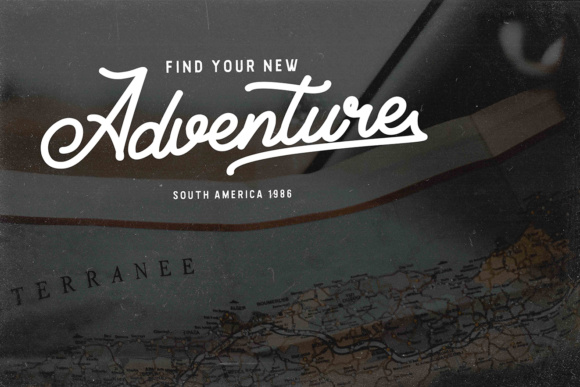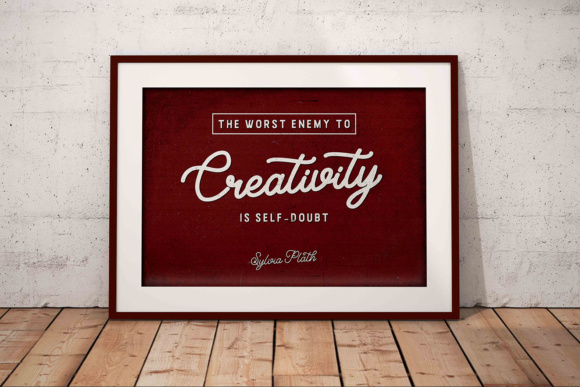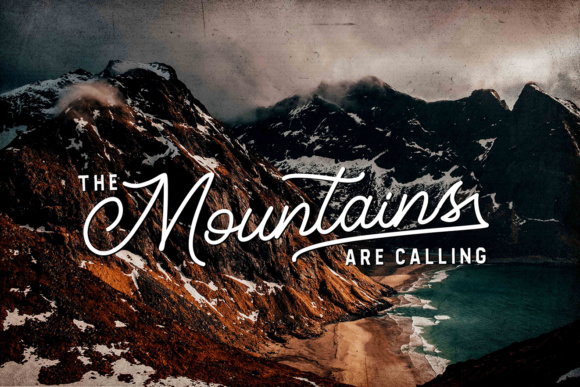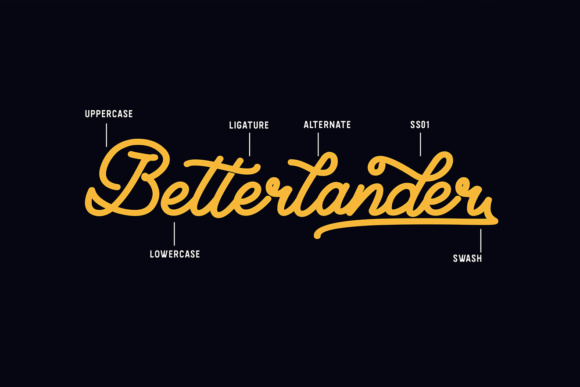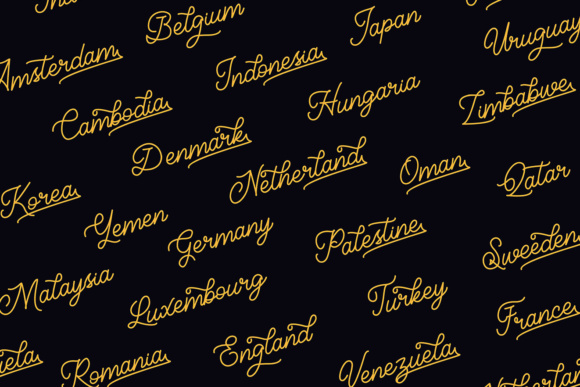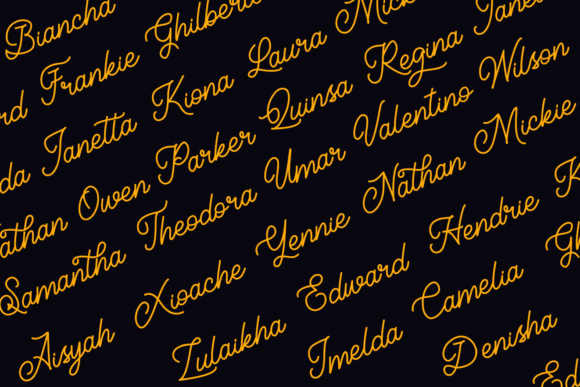
The Timeless Elegance of Classical Font: Elevate Your Design with a Monoline Typeface
In the world of typography, few fonts have managed to stand the test of time like the Classical font. This monoline typeface, available in regular and bold versions, has been a staple in the design community for its classic elegance and versatility. Whether you’re a seasoned designer or a crafty DIY enthusiast, the Classical font is an excellent addition to your typographic arsenal.
The Characteristics of Classical Font
The Classical font is a monoline typeface, characterized by its clean and simple lines. The regular version of the font exudes a sense of classic elegance, reminiscent of traditional serif fonts, but with a modern twist. The bold version, on the other hand, packs a punch, giving your design a striking look that’s sure to grab attention.
One of the key features of the Classical font is its exceptional legibility. The carefully crafted letterforms ensure that your text remains clear and easy to read, even at smaller font sizes. This makes it an excellent choice for body text, as well as for headlines and titles.
Using Classical Font in Your Design
The Classical font’s versatility is one of its greatest strengths. Its classic elegance makes it an excellent choice for a wide range of design projects, including:
- Branding and logos: The Classical font’s timeless look makes it an excellent choice for logos and branding materials. Its elegance and sophistication evoke a sense of tradition and stability, perfect for established companies or those looking to create a lasting impression.
- Print materials: From brochures and flyers to business cards and letterheads, the Classical font is an excellent choice for any print material. Its legibility and classic look ensure that your text is easy to read and visually appealing.
- Digital media: The Classical font is also well-suited for digital media, including website headers, social media graphics, and email newsletters. Its clean lines and simple shapes ensure that it looks great on a variety of devices and screen sizes.
Tips for Pairing Classical Font with Other Typefaces
While the Classical font is beautiful on its own, it can also be paired with other typefaces to create a unique and visually appealing design. Here are a few tips for pairing the Classical font with other fonts:
- Combine with a sans-serif font: Pairing the Classical font with a sans-serif font, such as Arial or Helvetica, creates a nice contrast between the classic elegance of the Classical font and the modern simplicity of the sans-serif font.
- Use with a script font: For a more creative look, pair the Classical font with a script font, such as Lobster or Pacifico. This combination adds a touch of elegance and sophistication to your design.
- Experiment with font sizes: Don’t be afraid to experiment with different font sizes when pairing the Classical font with other typefaces. Using a larger font size for headings and a smaller font size for body text can create a visually appealing hierarchy of information.
| Font Name | Classical Font |
| Author | MLKWSN studio |
The Classical font is a timeless and versatile typeface that’s perfect for designers and crafters looking to add a touch of elegance and sophistication to their work. Its classic look, exceptional legibility, and versatility make it an excellent choice for a wide range of design projects. Whether you’re creating a logo, brochure, or website, the Classical font is sure to elevate your design and leave a lasting impression.
So why not give the Classical font a try? With its regular and bold versions, you’re sure to find the perfect fit for your design needs. Whether you’re a seasoned designer or just starting out, the Classical font is an excellent addition to your typographic toolkit.